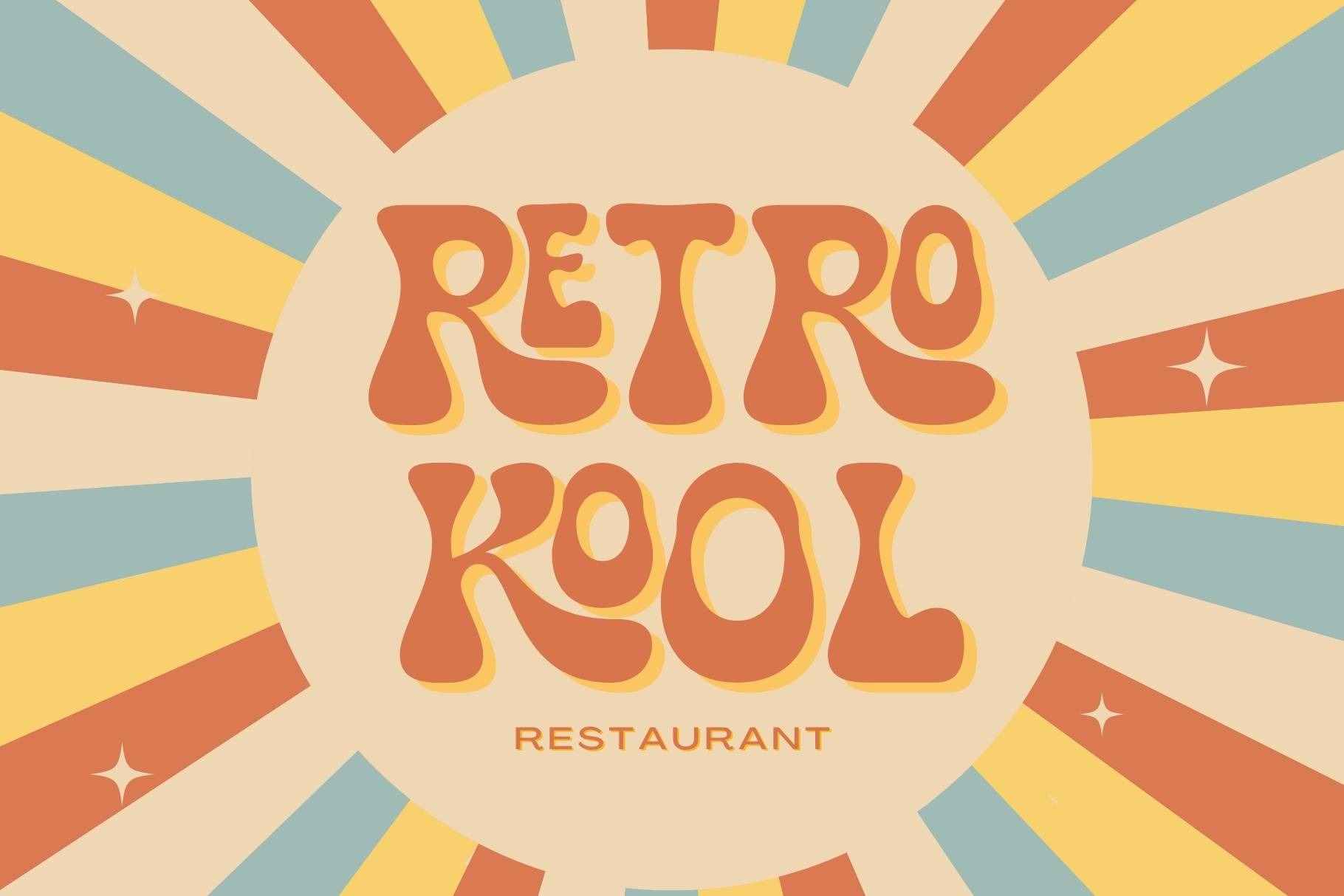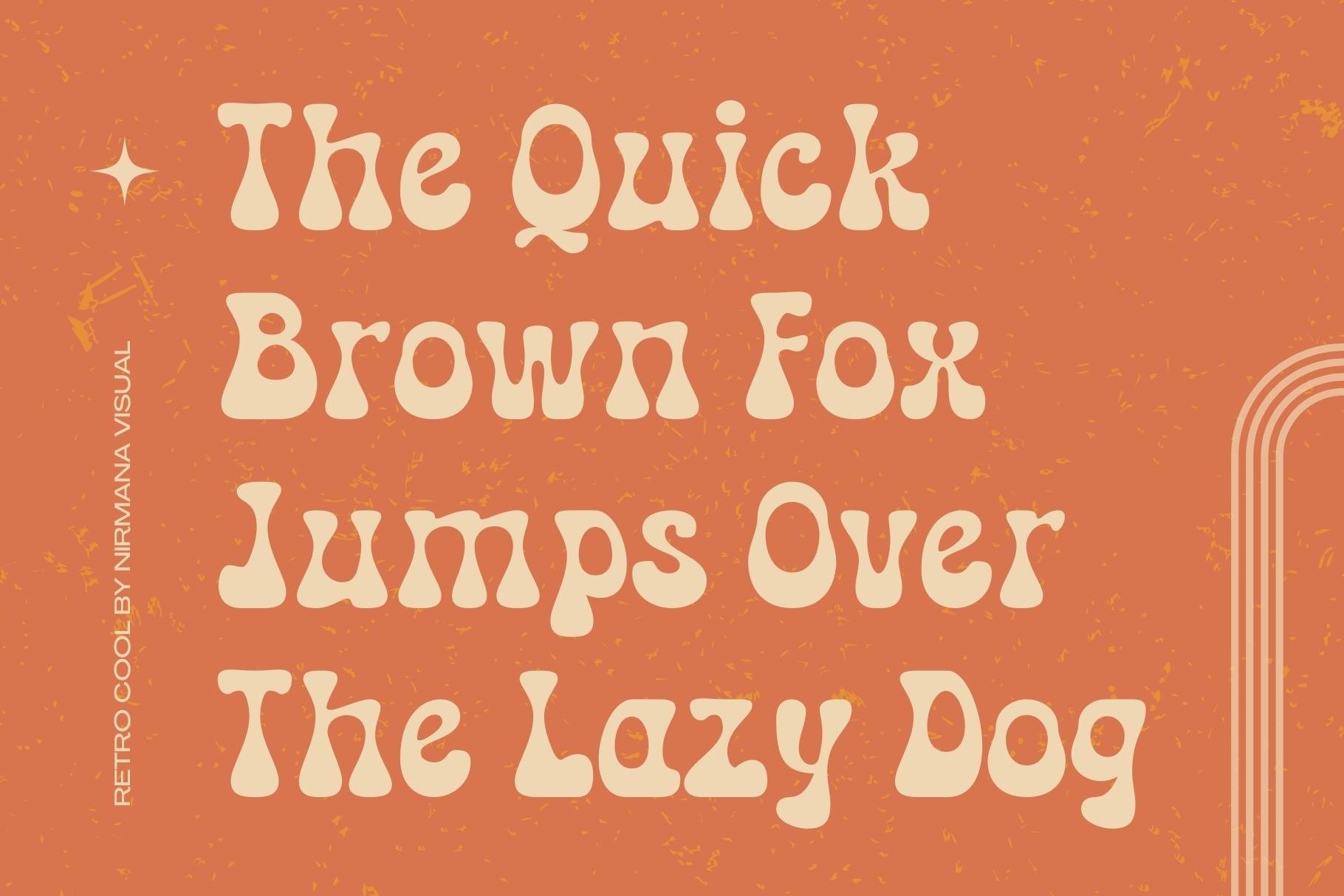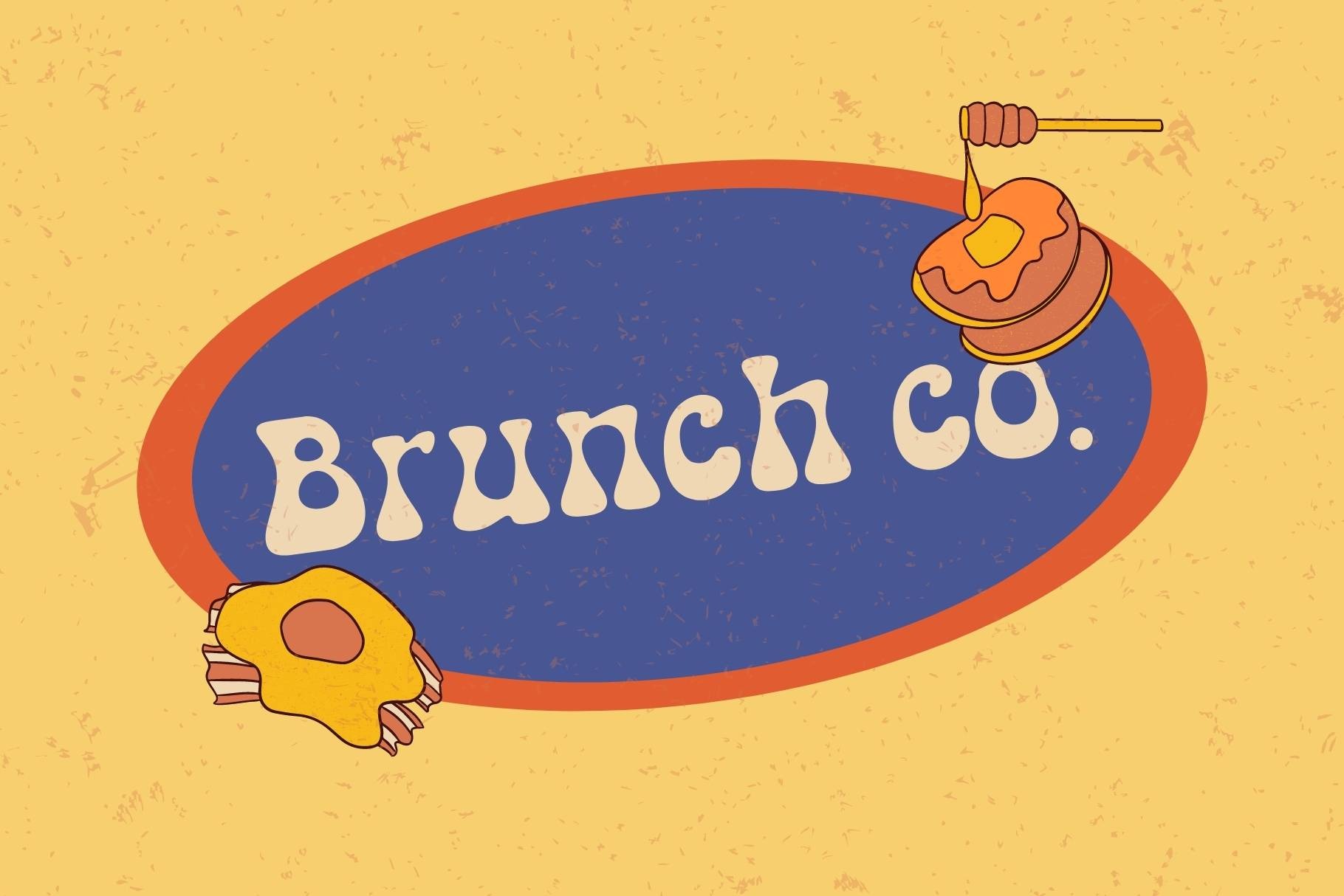
Retro Cool Display Font
This is a modern, bold and playful display font with retro and groovy style concept. Inspired by 70s -80s Design style.
Retro Cool offers beautiful typographic harmony for a diversity of design projects, including logos & branding, social media posts, advertisements & product designs.